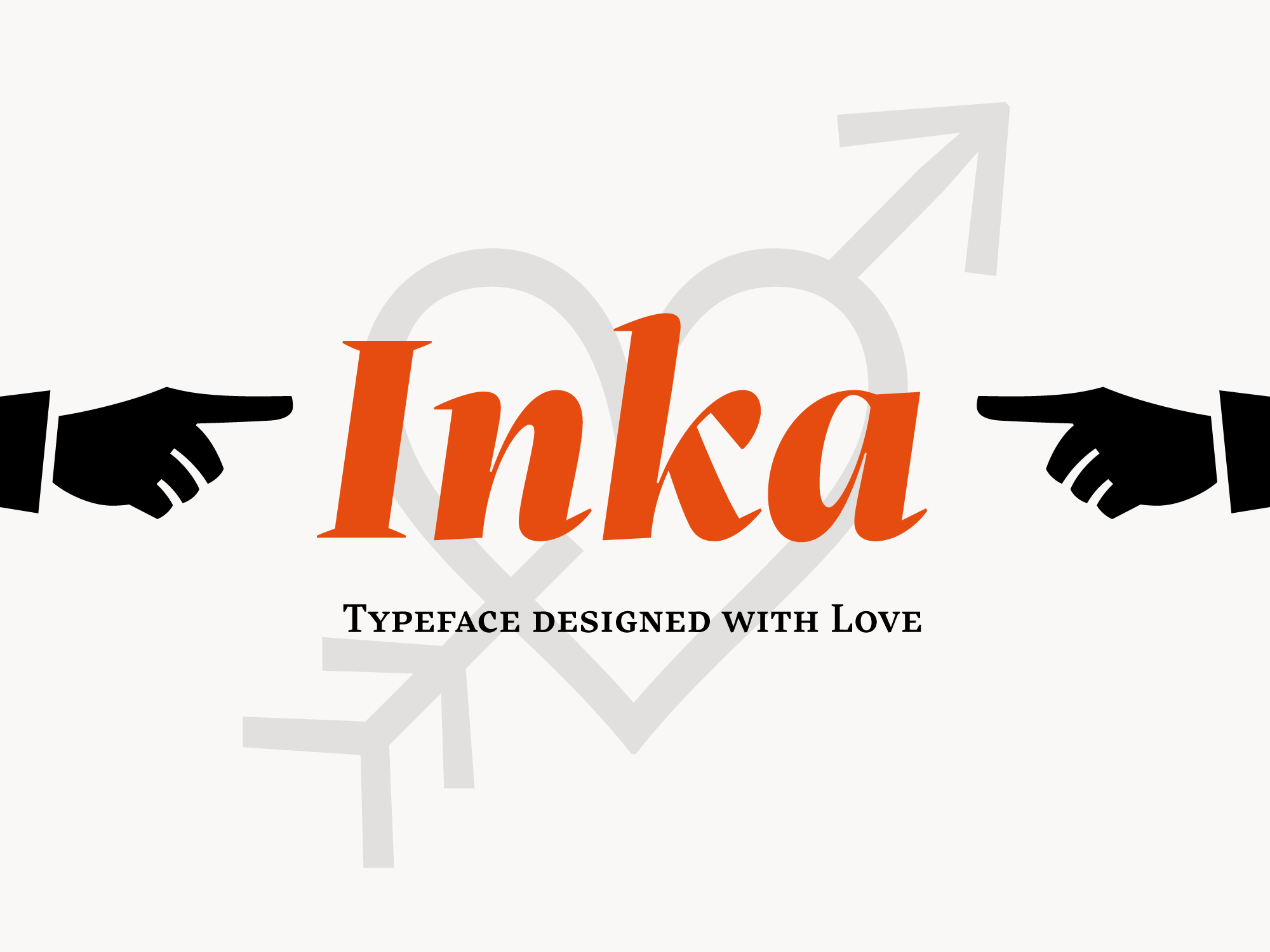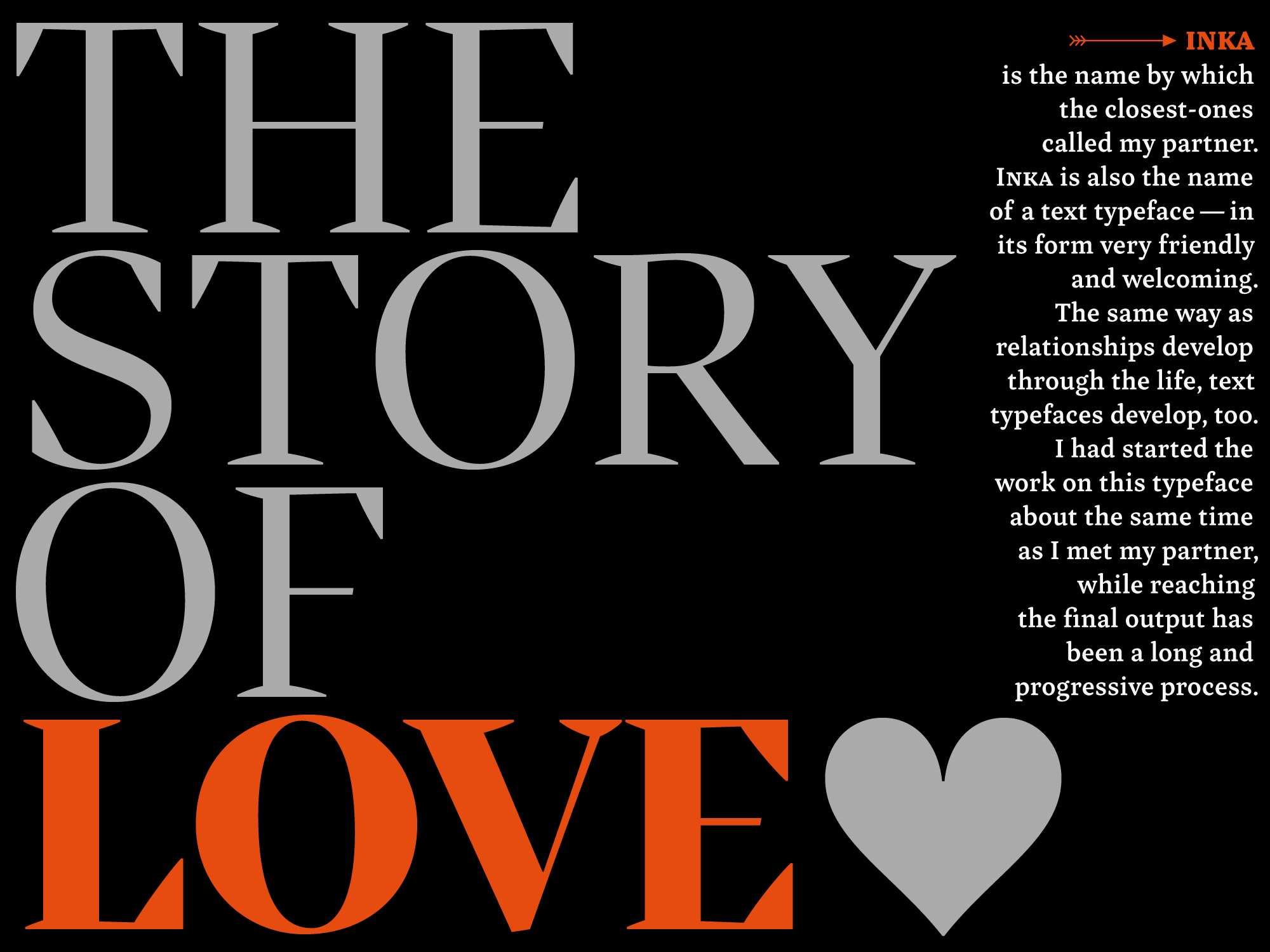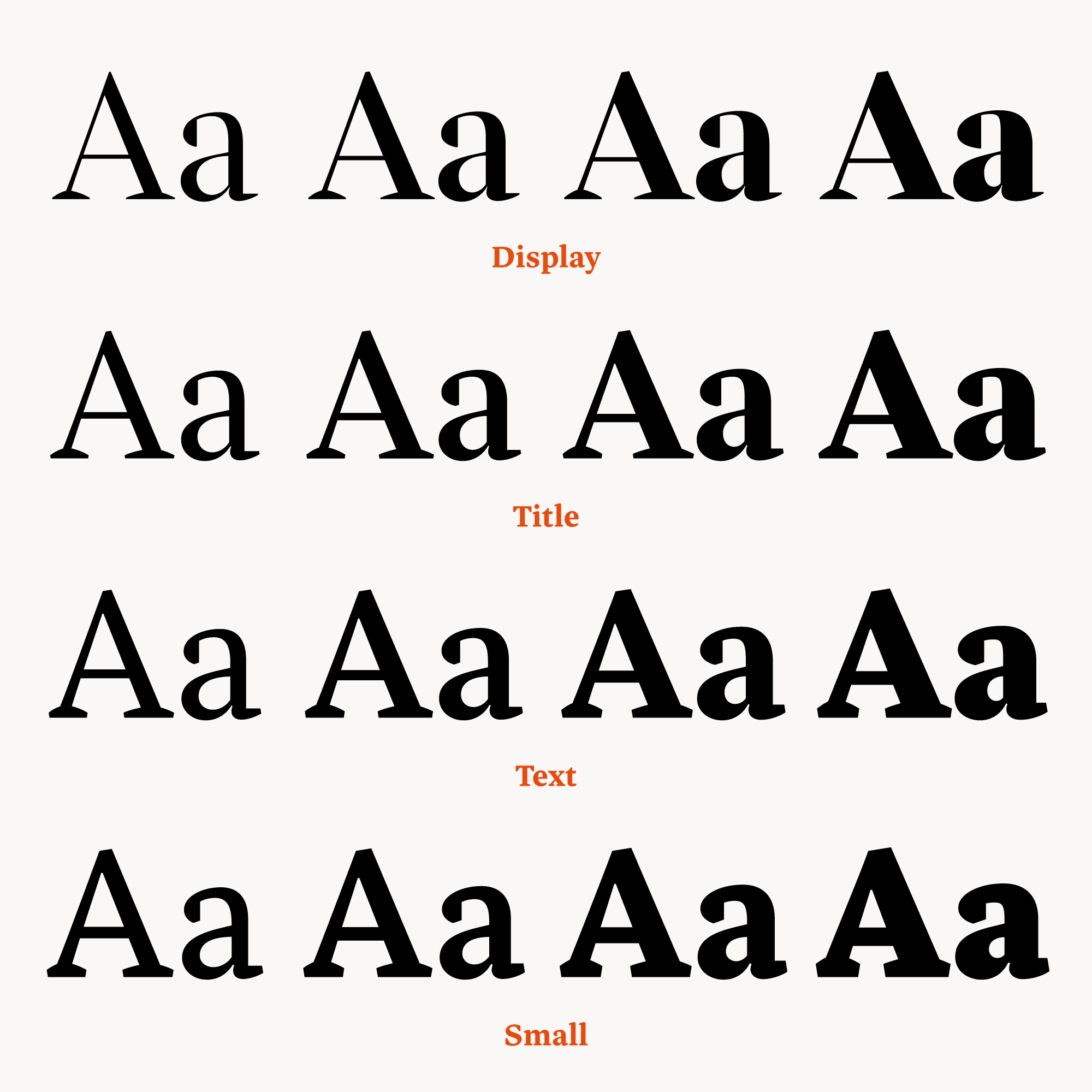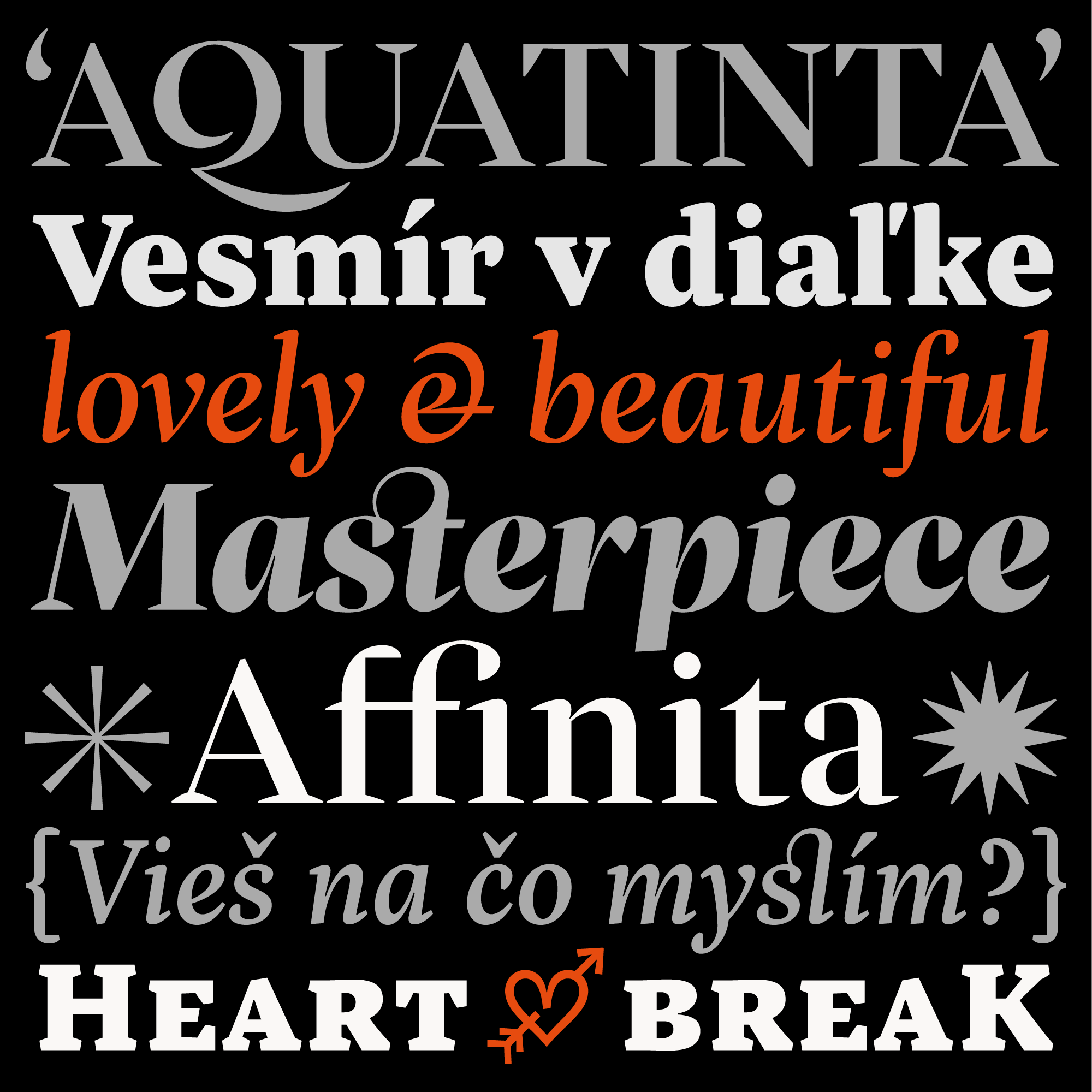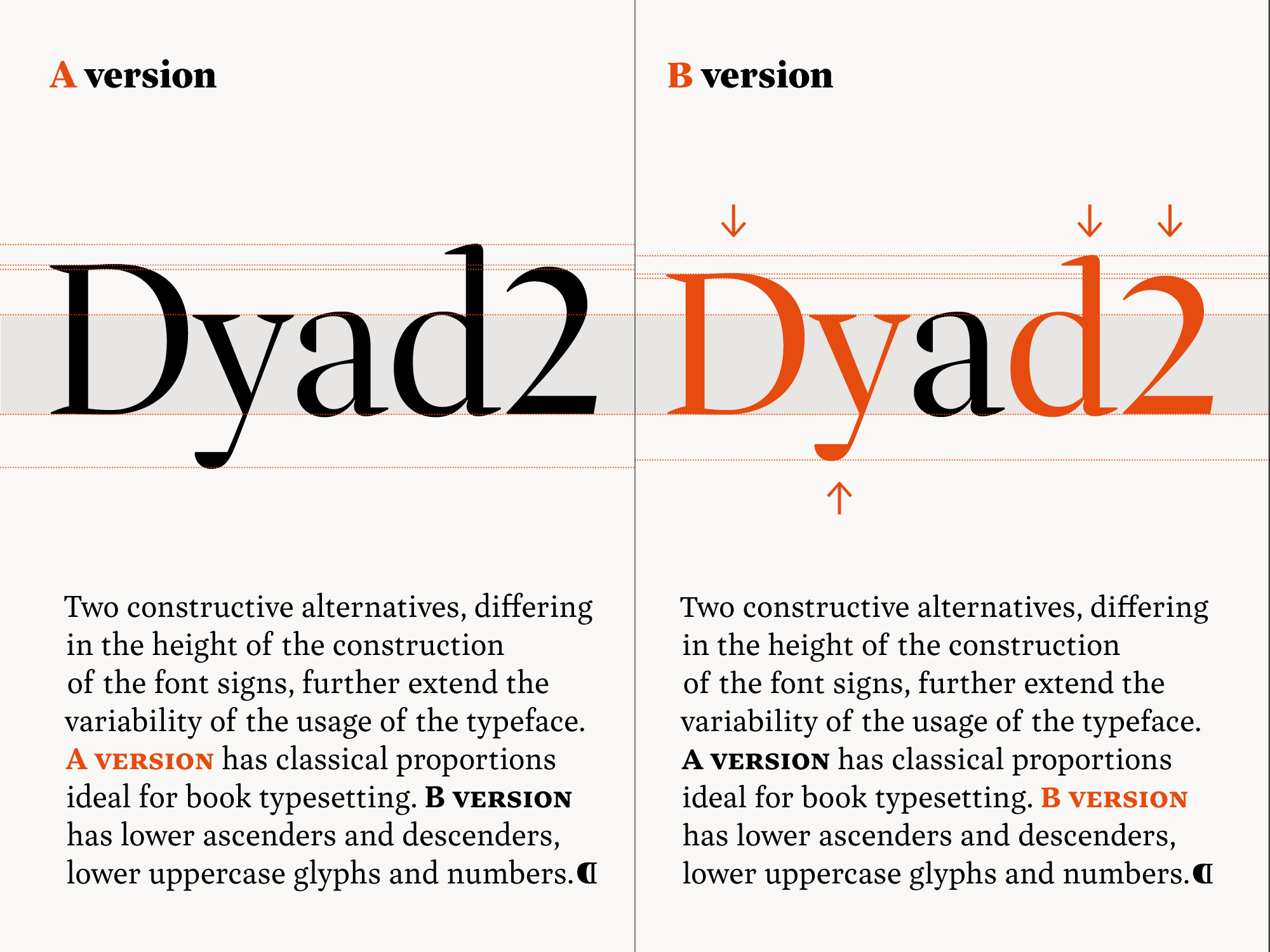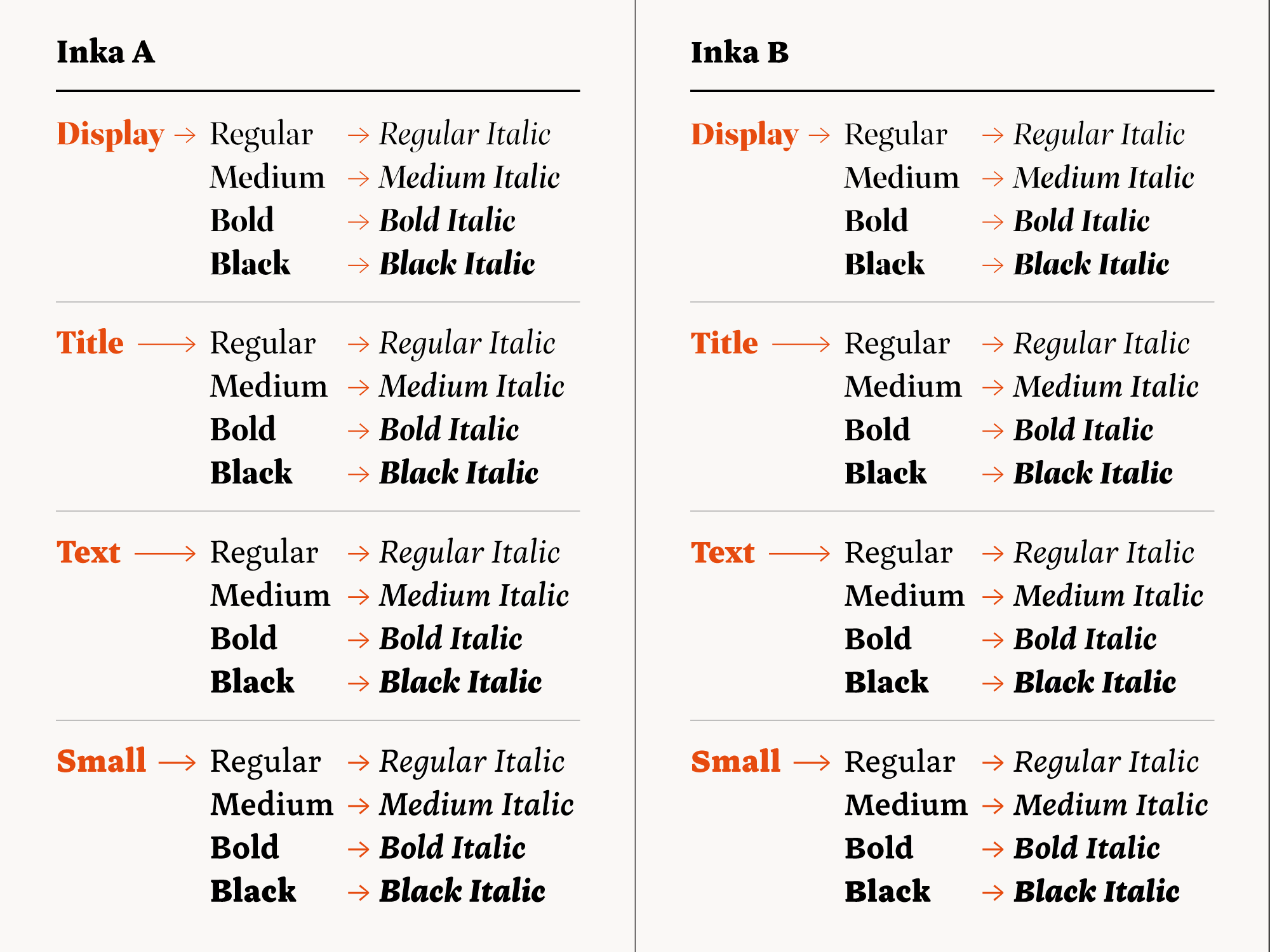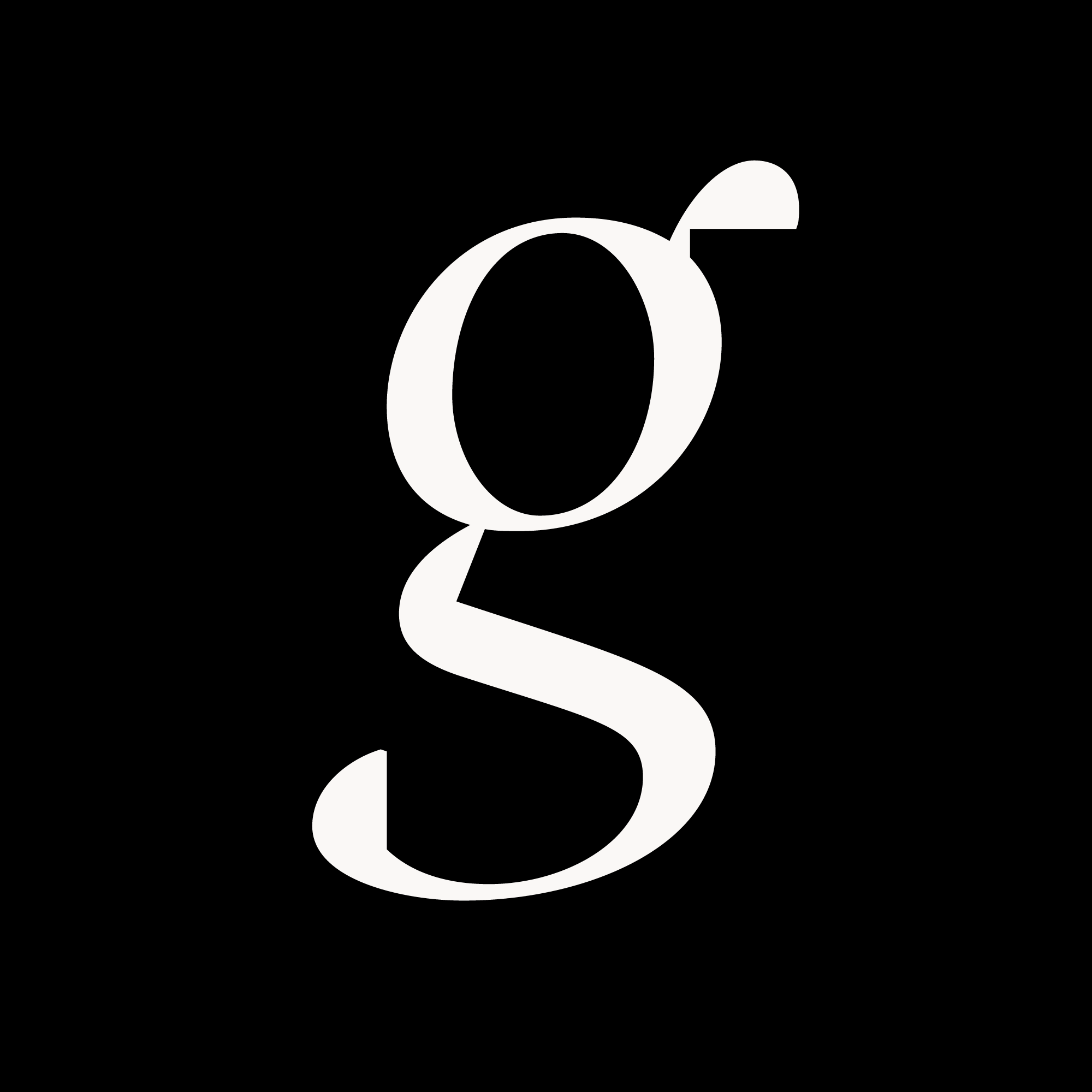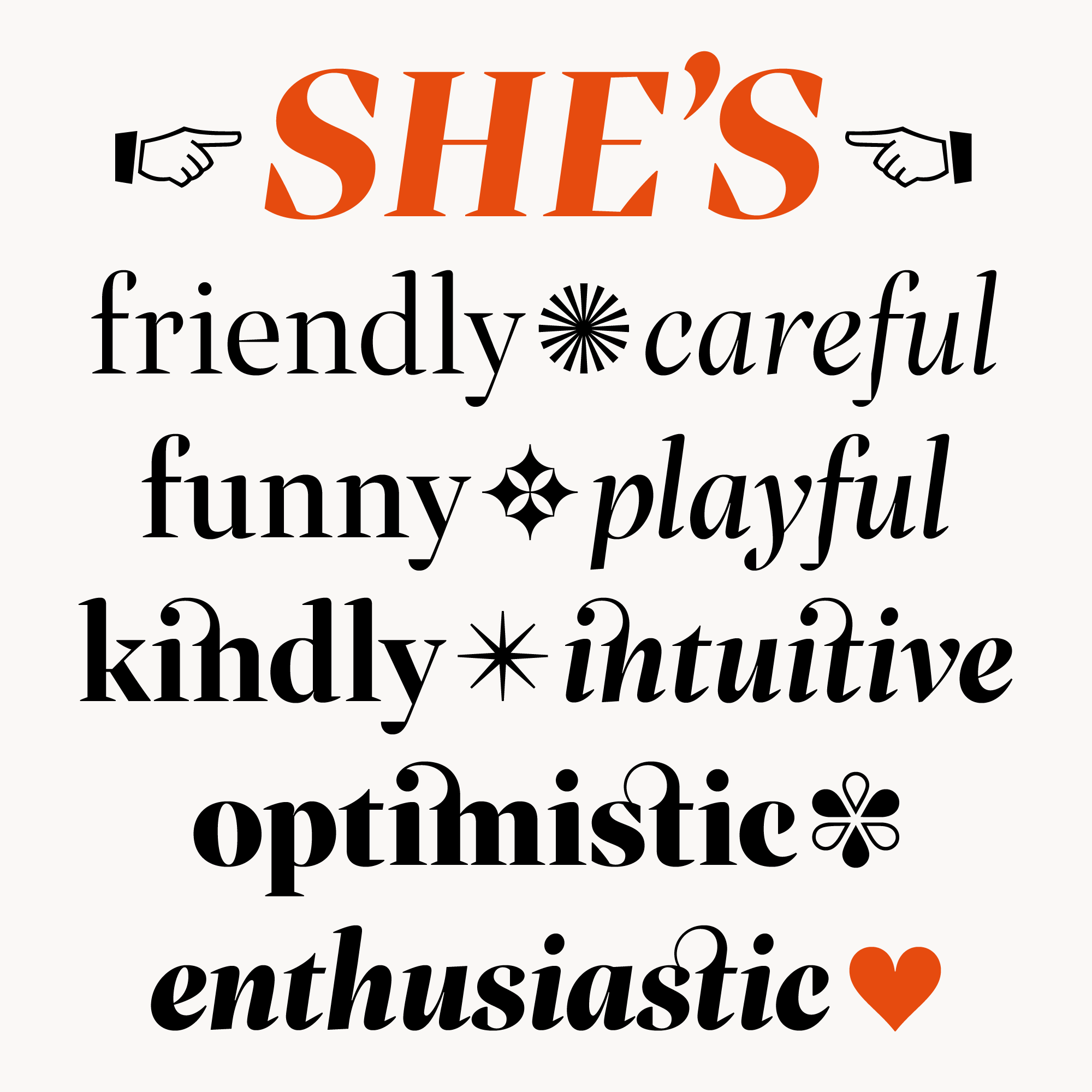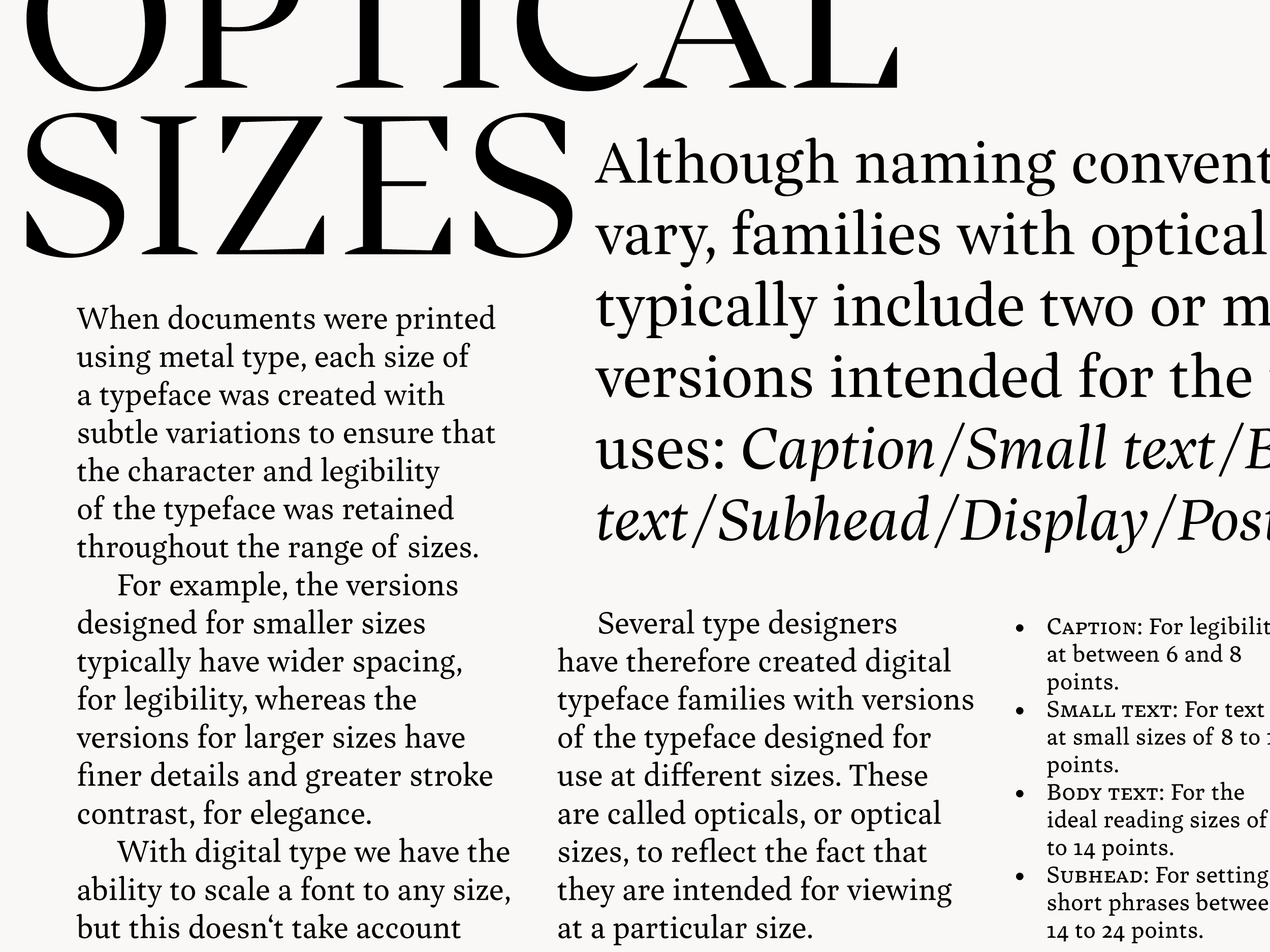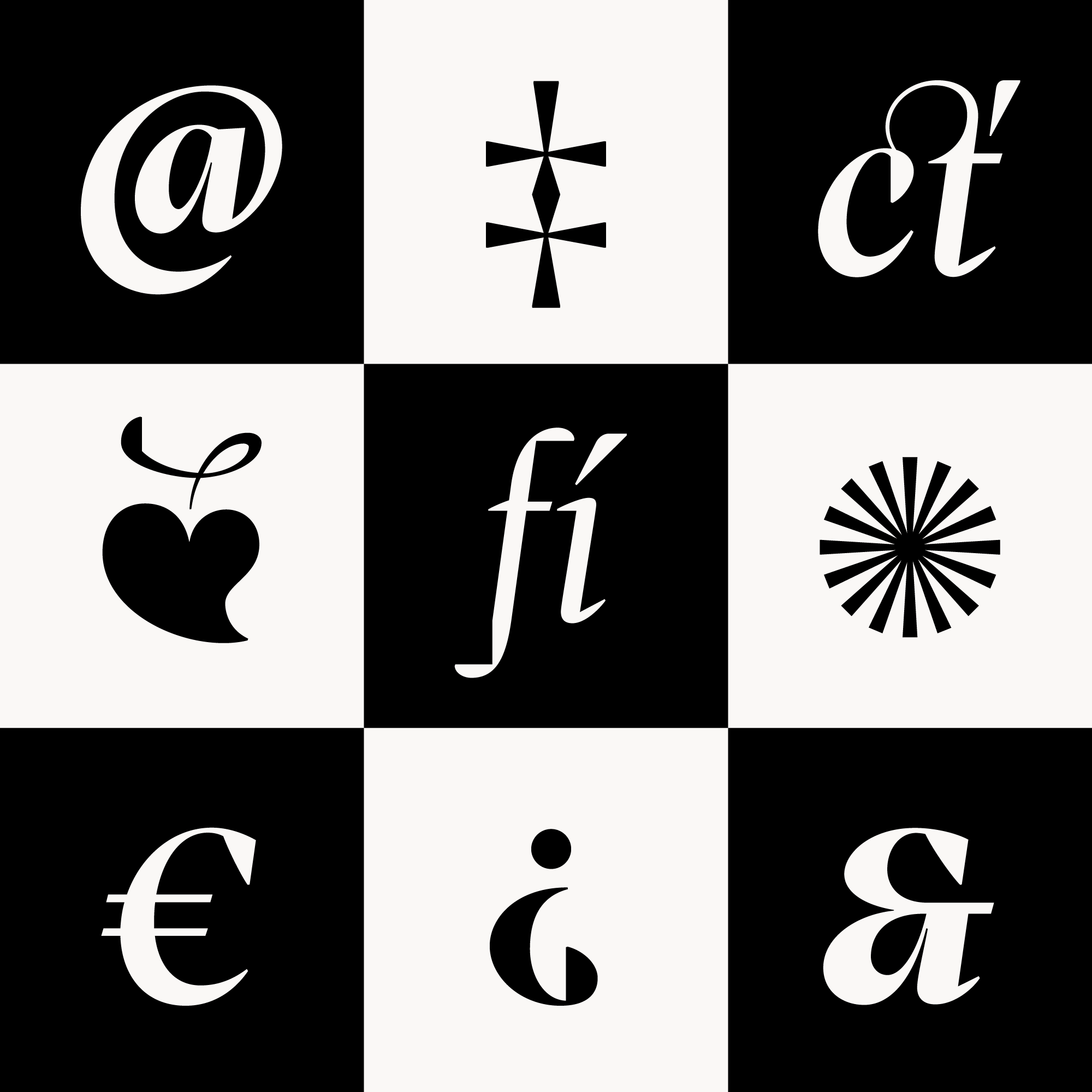
Inka
Inka is a modern serif typeface with wide universality in functions (various editorial usages as books, magazines, annual reports…). Typeface is based on the principle of optical sizes designed for the particular use of the size of typesetting (Small, Text, Title, Display) and consist of two construction alternatives (lower or higher vertical proportions). Each of the font set (Display, Title, Text, Small) consists of four weights (Regular, Medium, Bold, Black), each has wide character set and a lot of OpenType features. Inka was created with love and is dedicated to my partner Inka.
64 fonts • 4 weights (with Italics) • 4 optical sizes (Display/Title/Text/Small) • 2 font variants (Inka A/Inka B) • 1113 glyphs • Latin support • © Samuel Čarnoký (2012 — 2015)